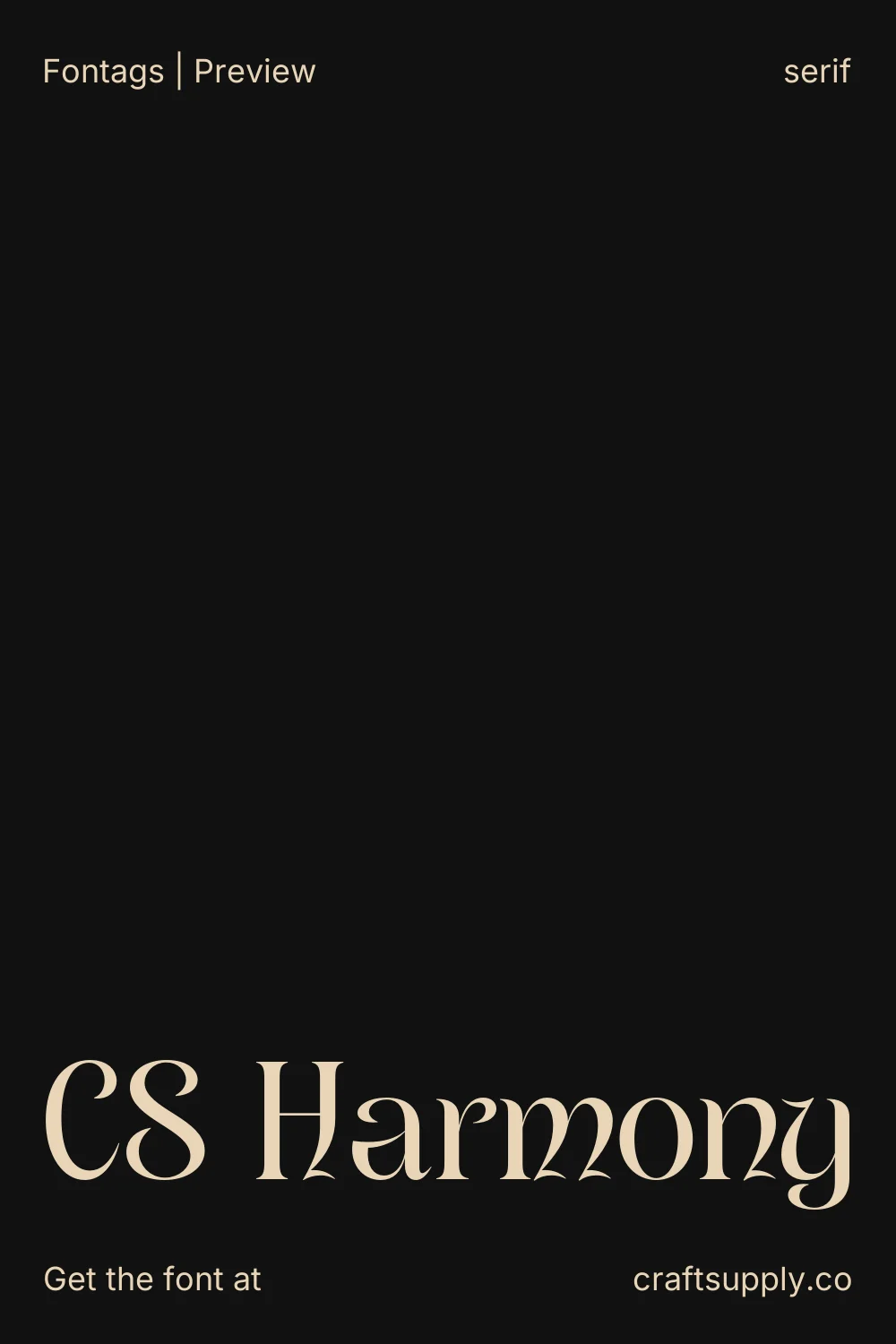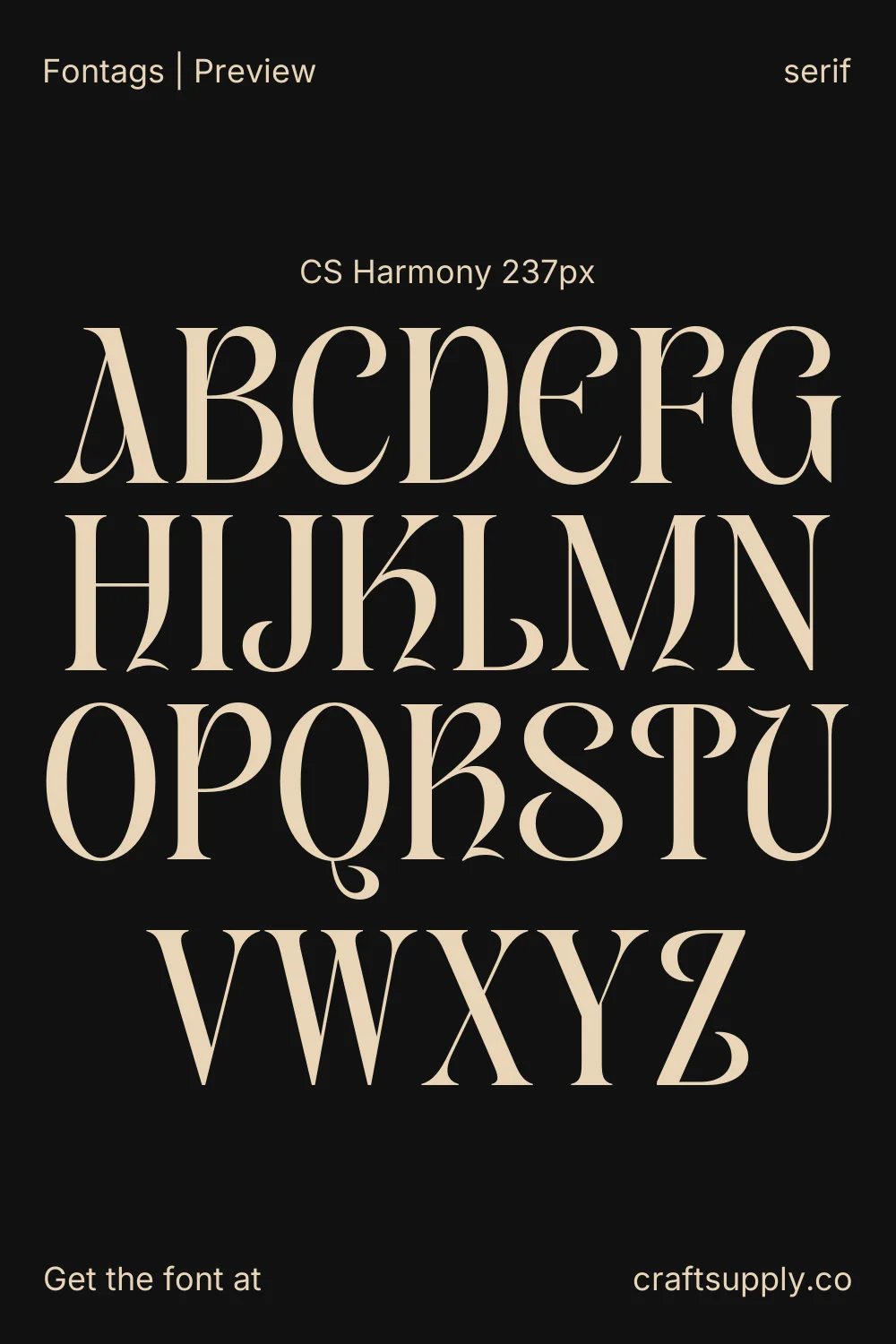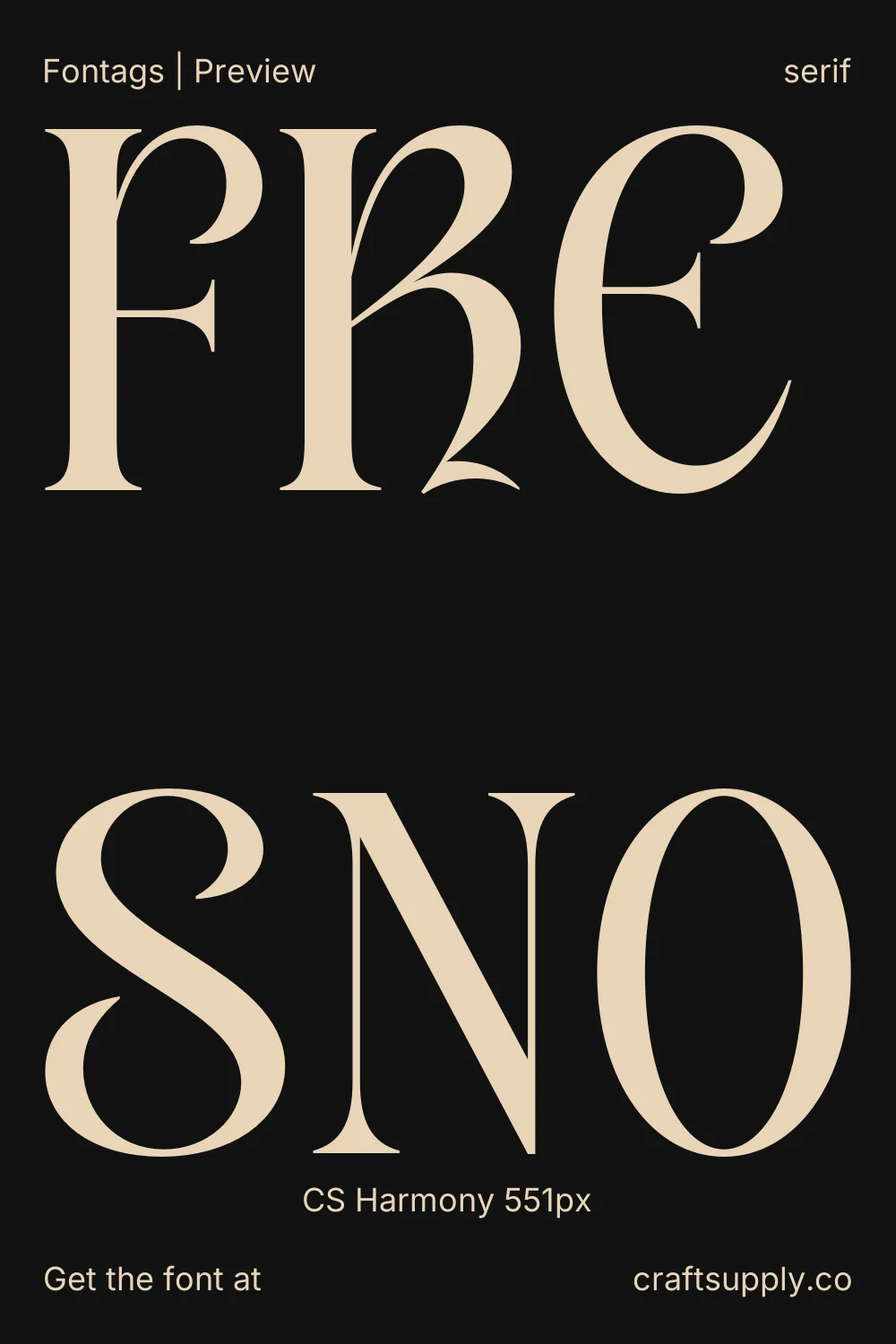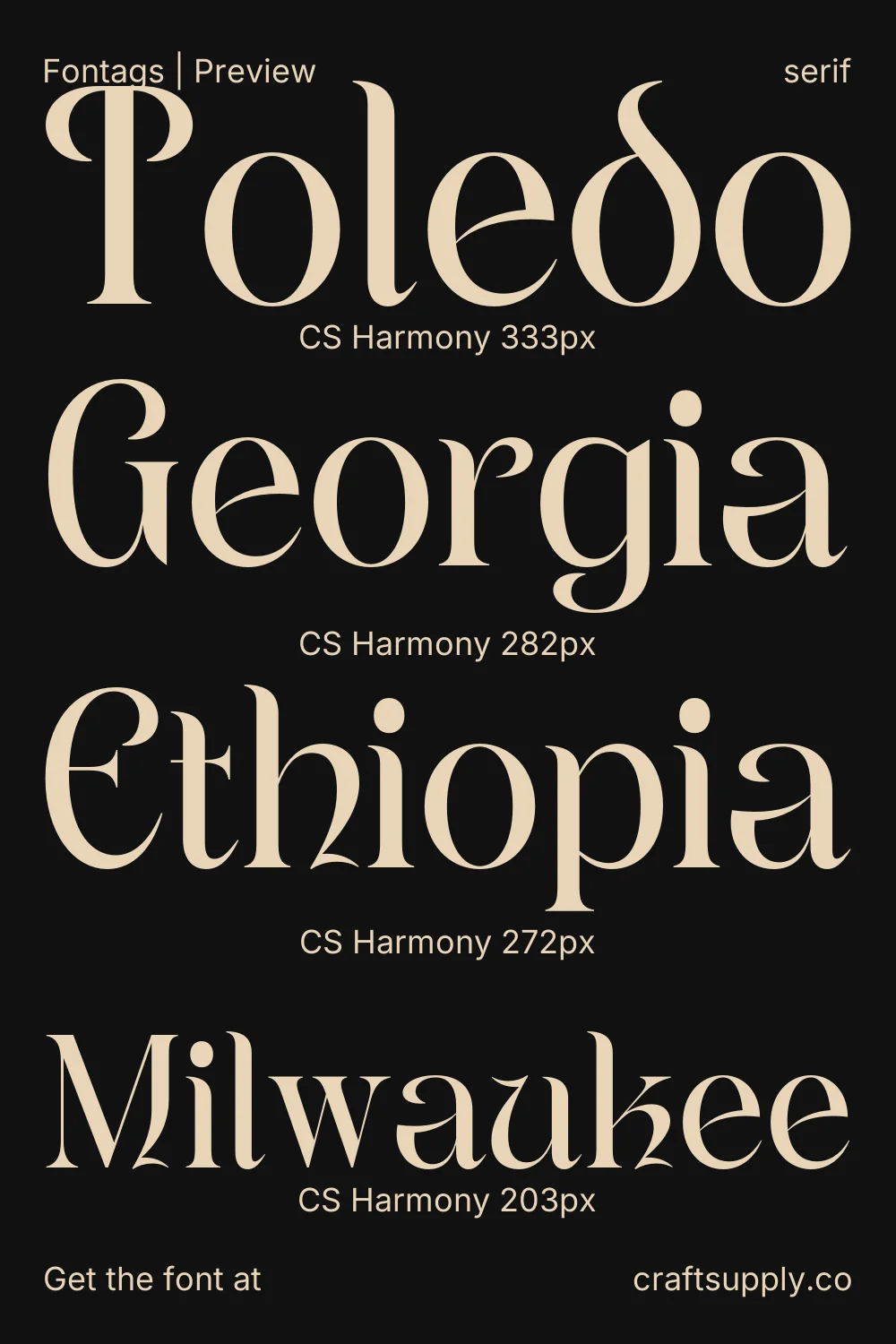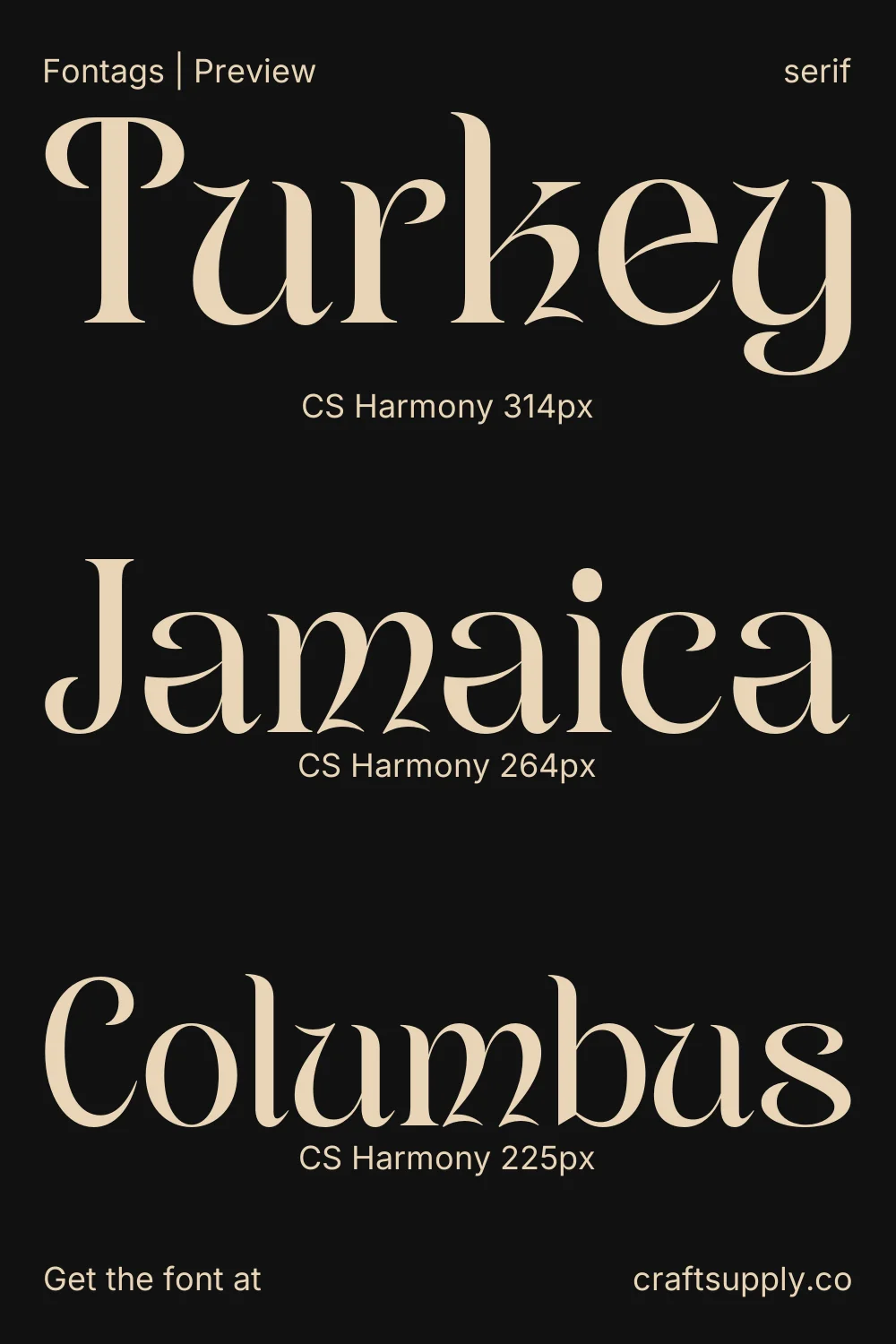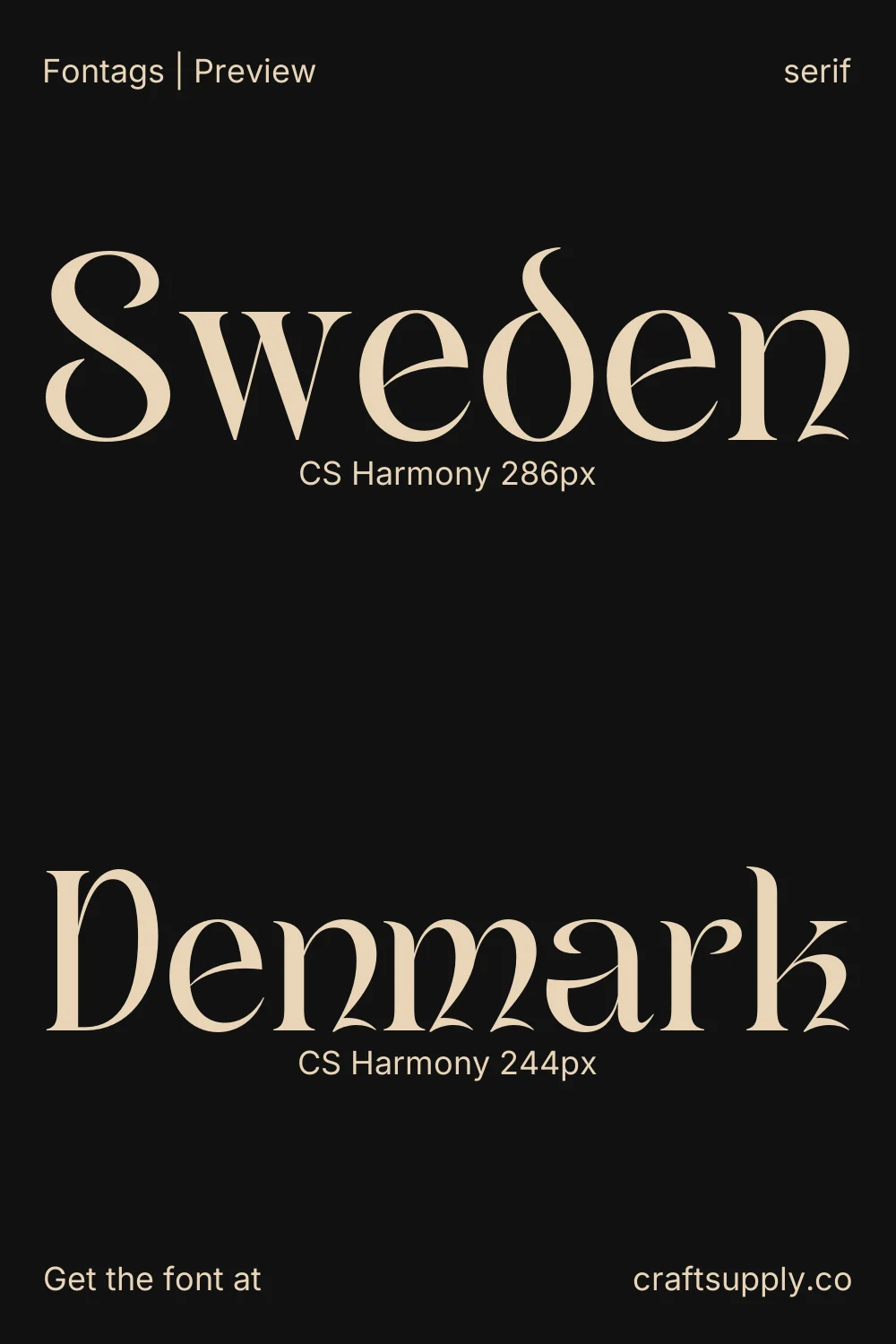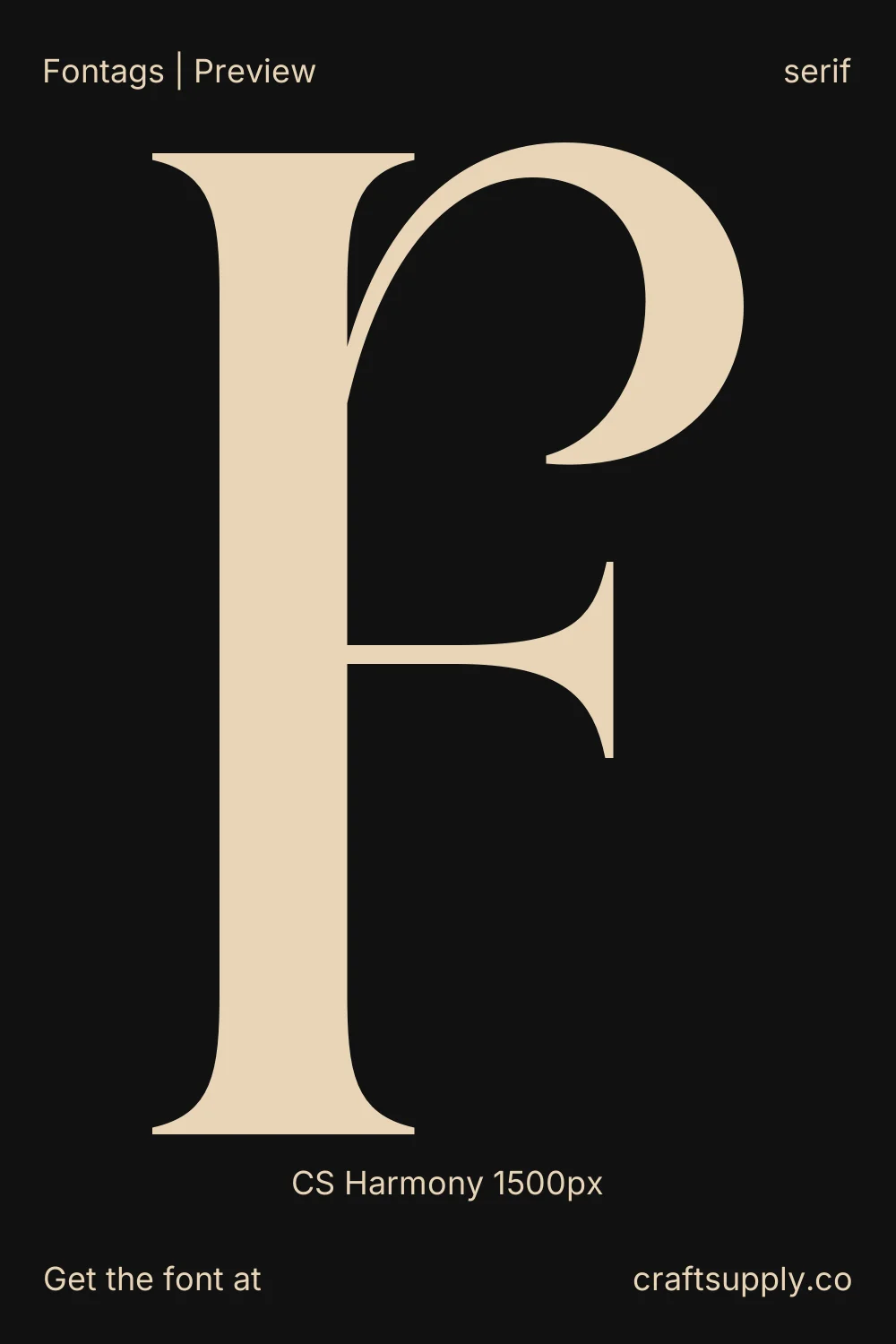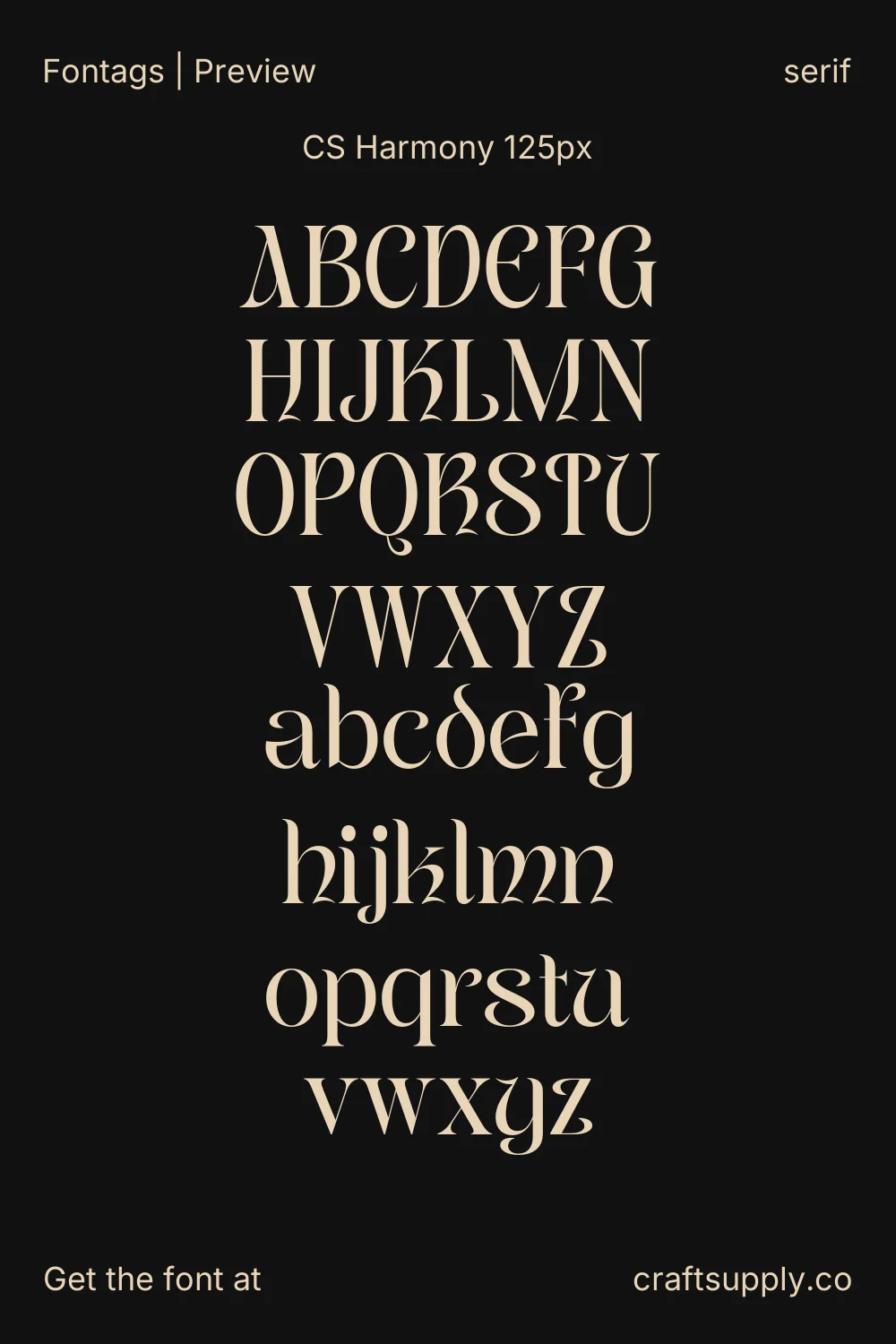
CS Harmony
CS Harmony is a modern serif display font that captures the elegance and visual allure of Uncial letterforms. Its rounded, flowing shapes exude a soft, artistic vibe inspired by traditional calligraphy, making it ideal for formal invitations, luxury branding, and any design that emphasizes sophistication and charm.